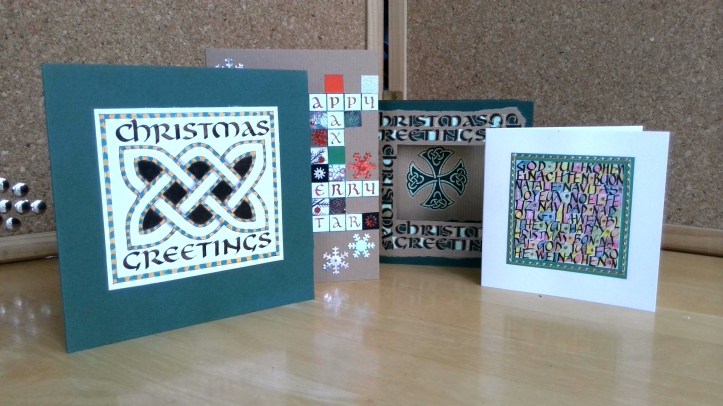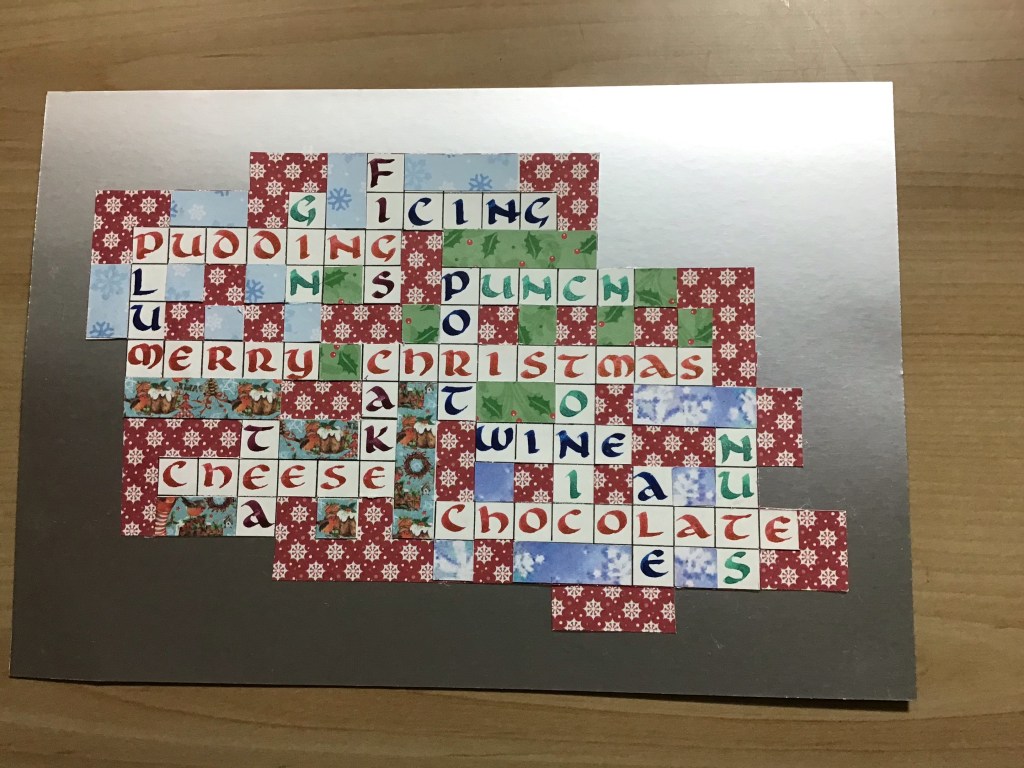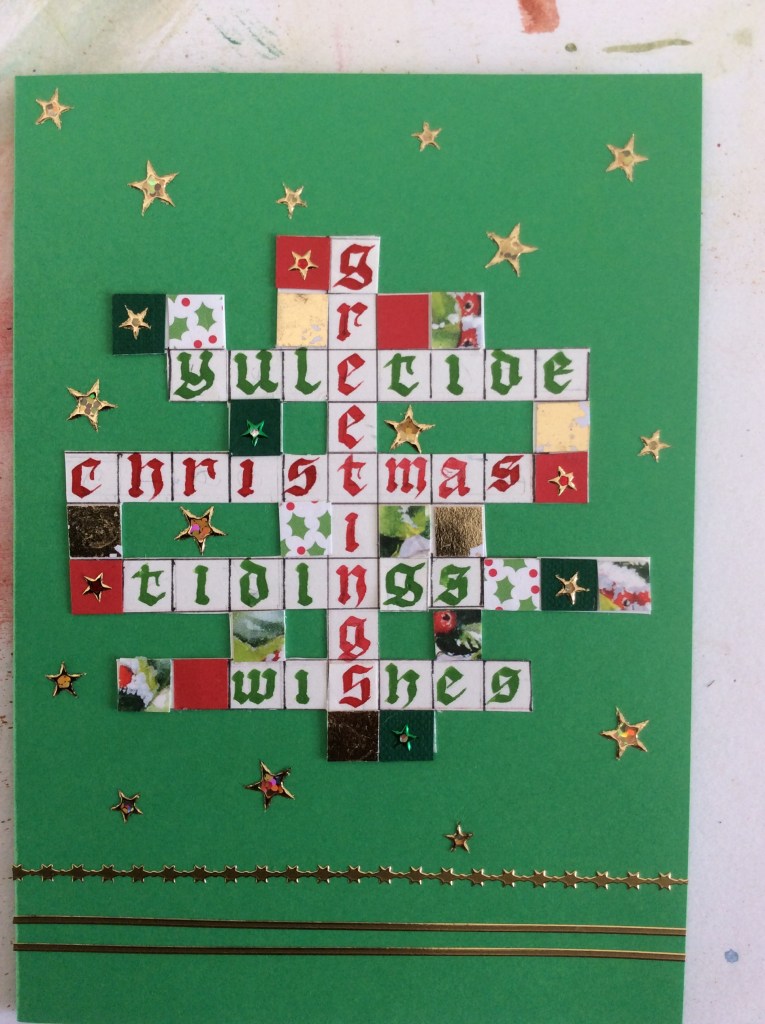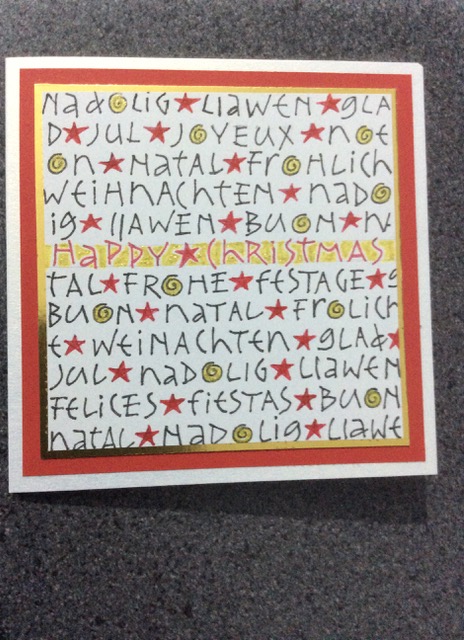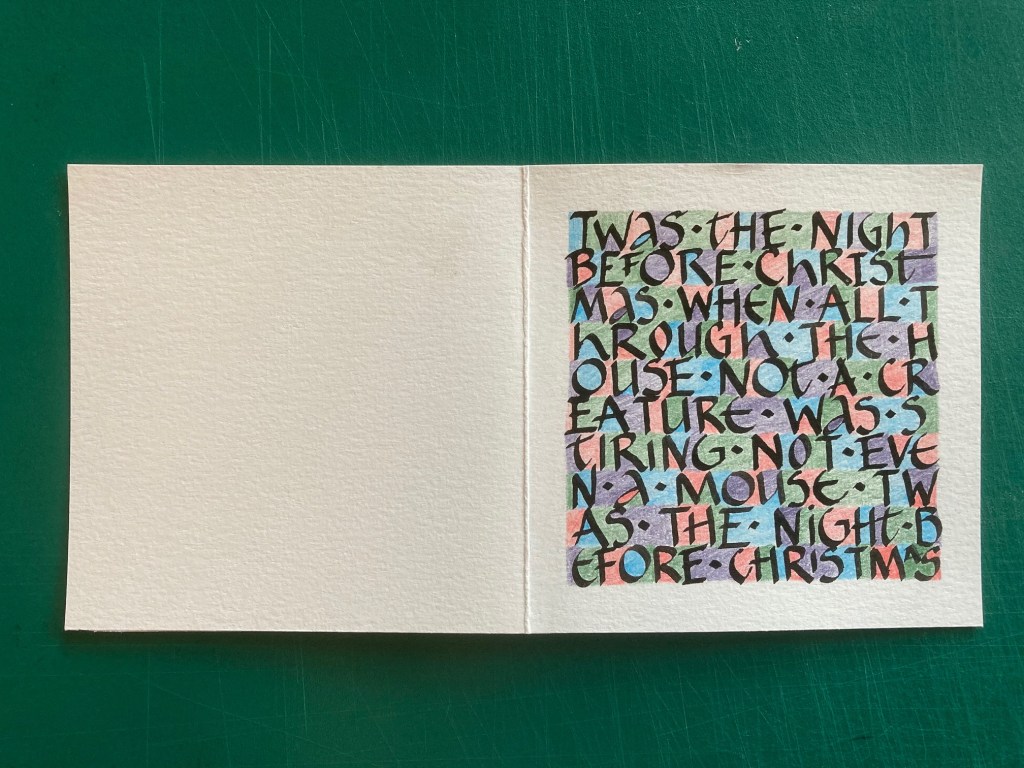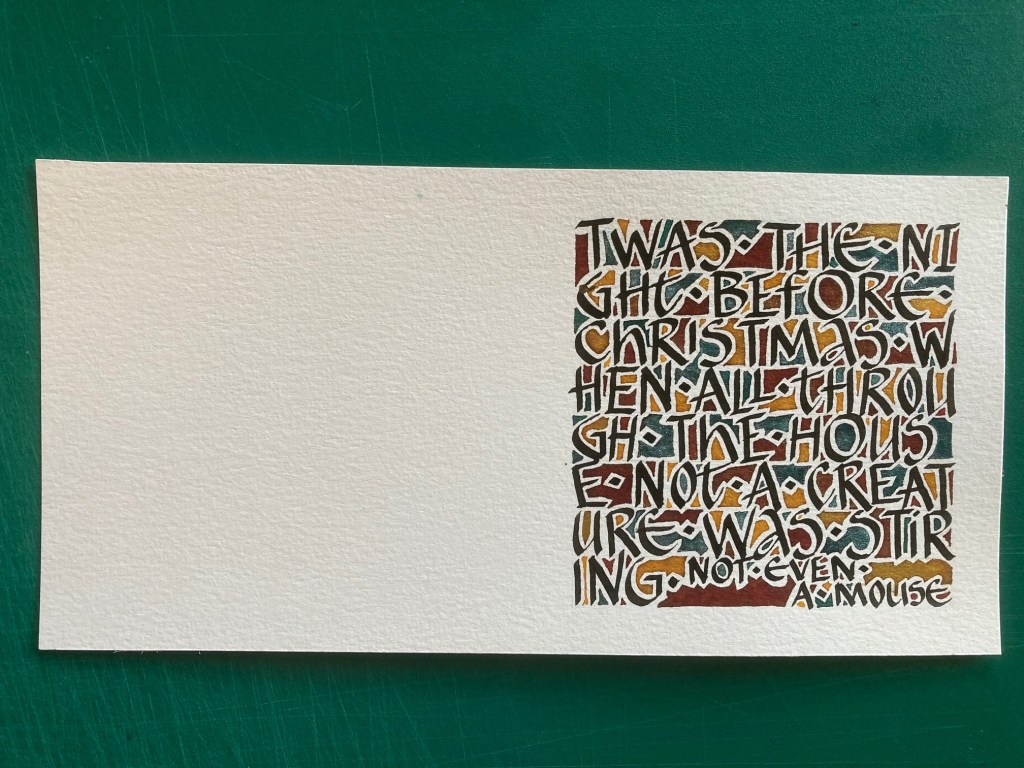
Vivien’s examples Alison Alan: Christmas Card Sarah Webb: Christmas Card Ann Sear: Christmas Card Sarah Webb: Christmas Card
These lovely cards were made by those who attended our online workshop for members on 17th October with Vivien Lunniss. She took us through the steps to create unique greetings cards using designs with a festive theme exploiting the textural, decorative qualities of pen lettering. The Uncial hand lends itself very well to these techniques. We practiced writing in squares for a crossword effect, or stacking words together and using different ways to colour the negative space around the letters. Further decoration can be added by cutting printed paper, or using stamps. Cards made this way can be adapted to any other celebration.